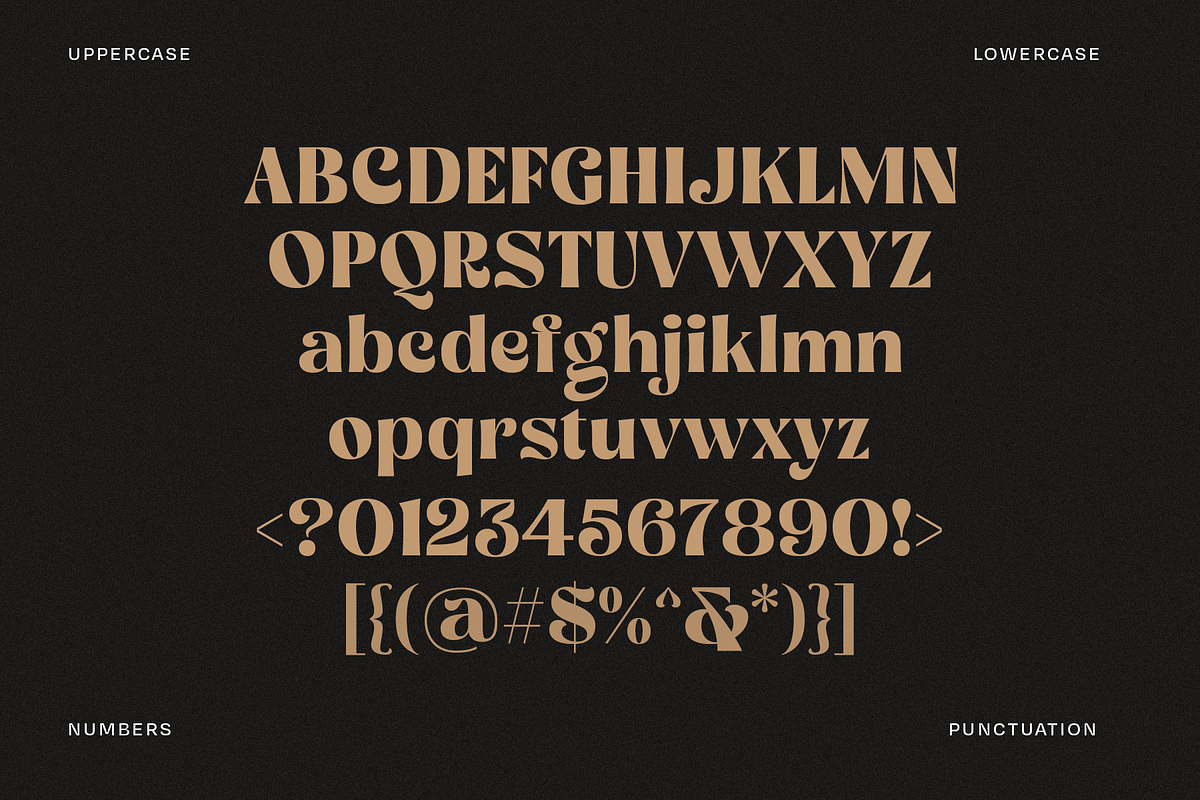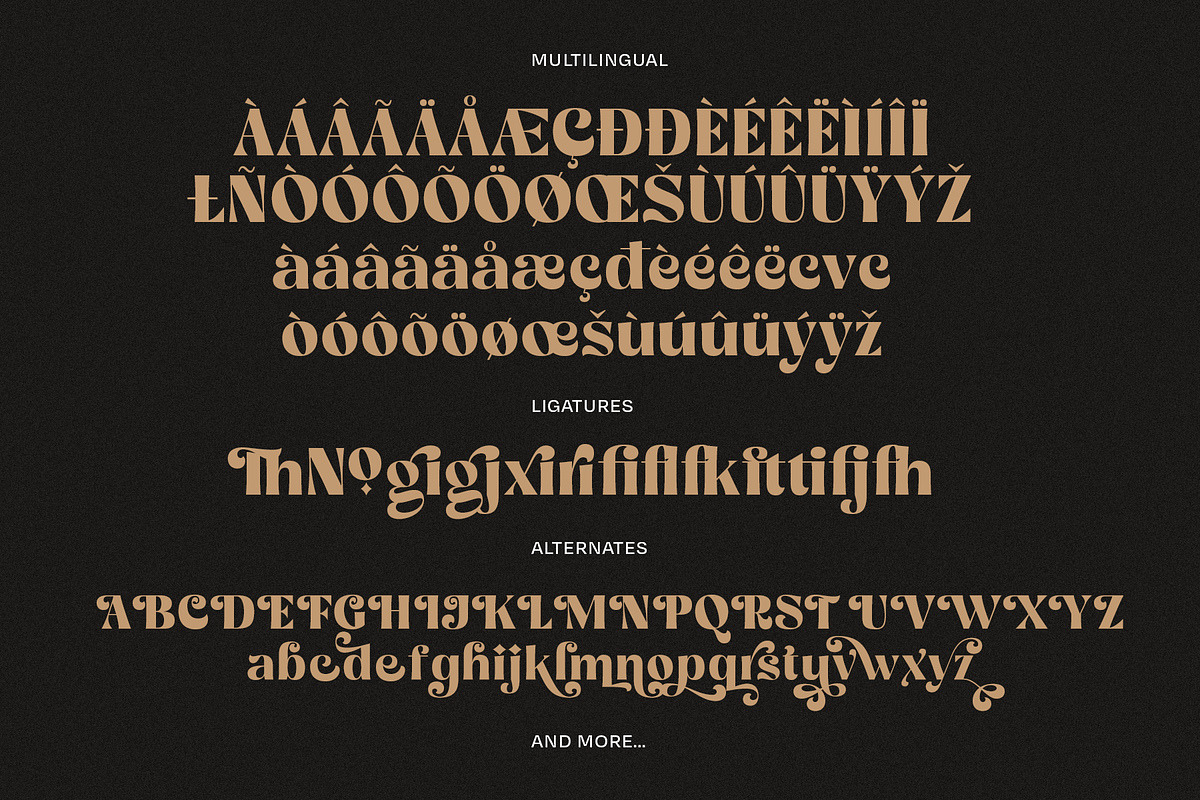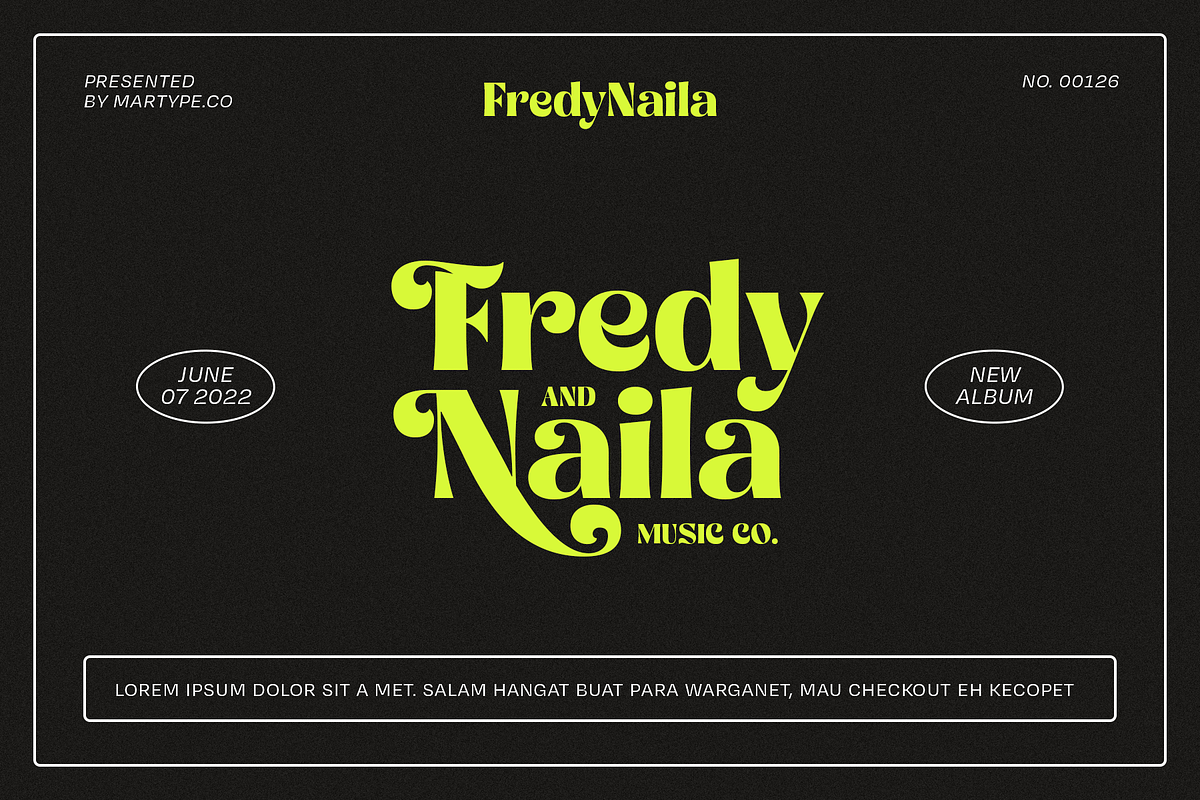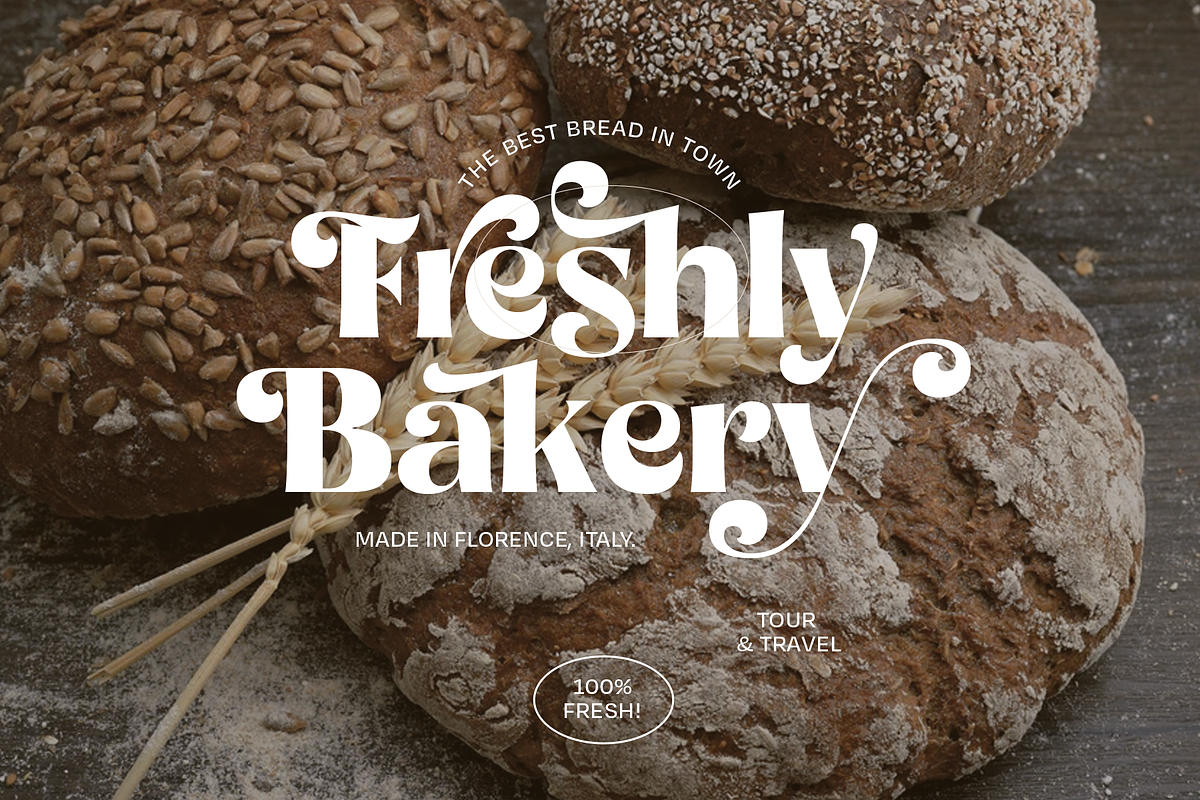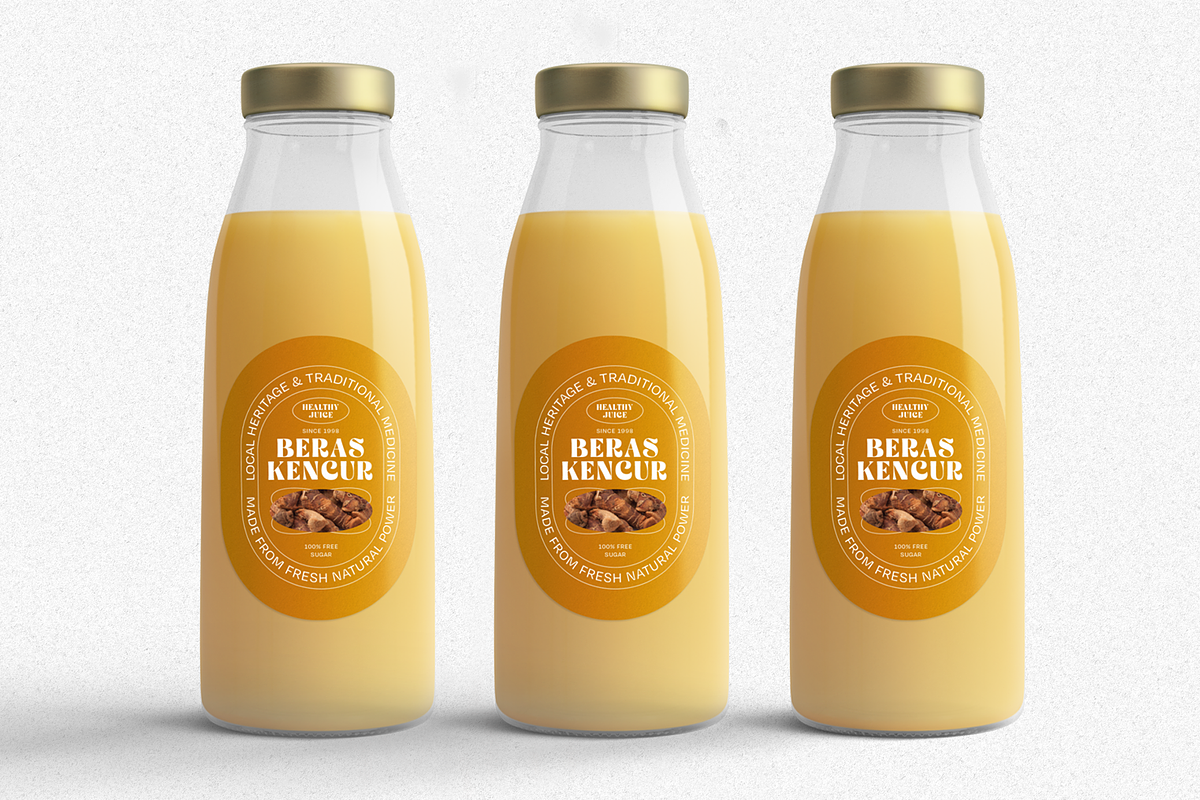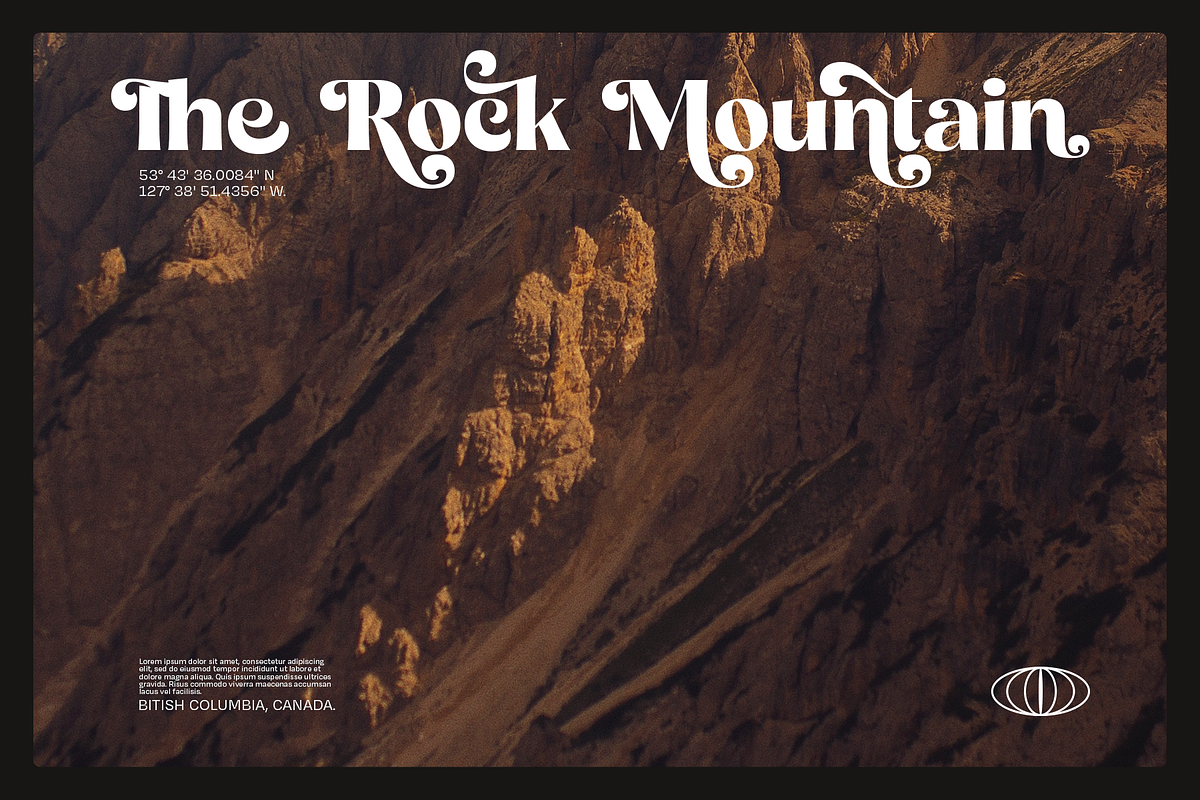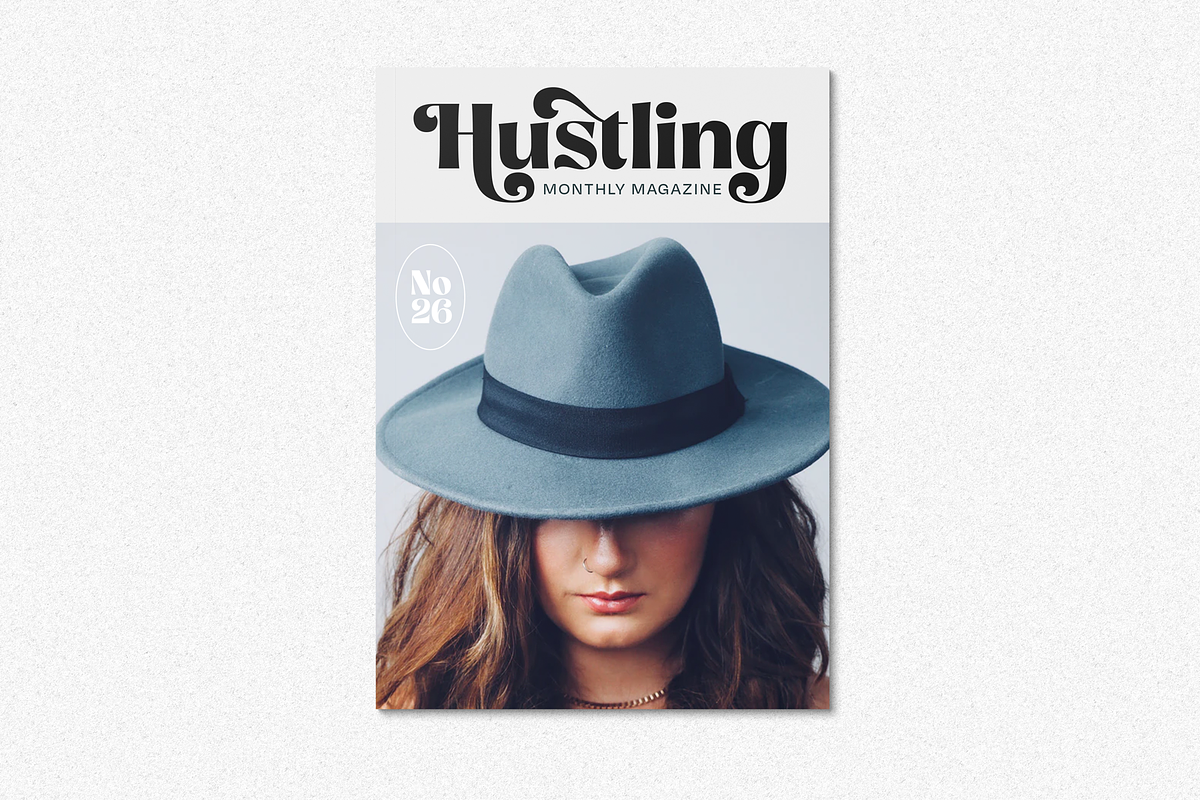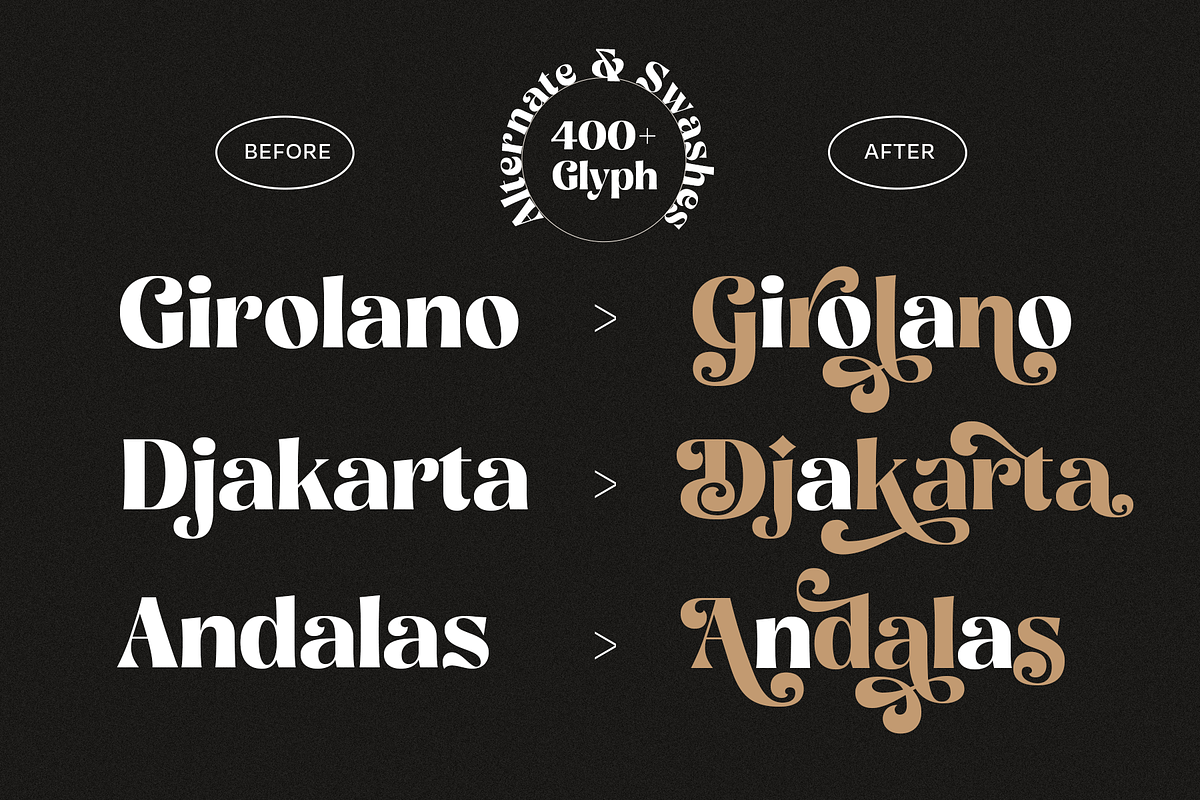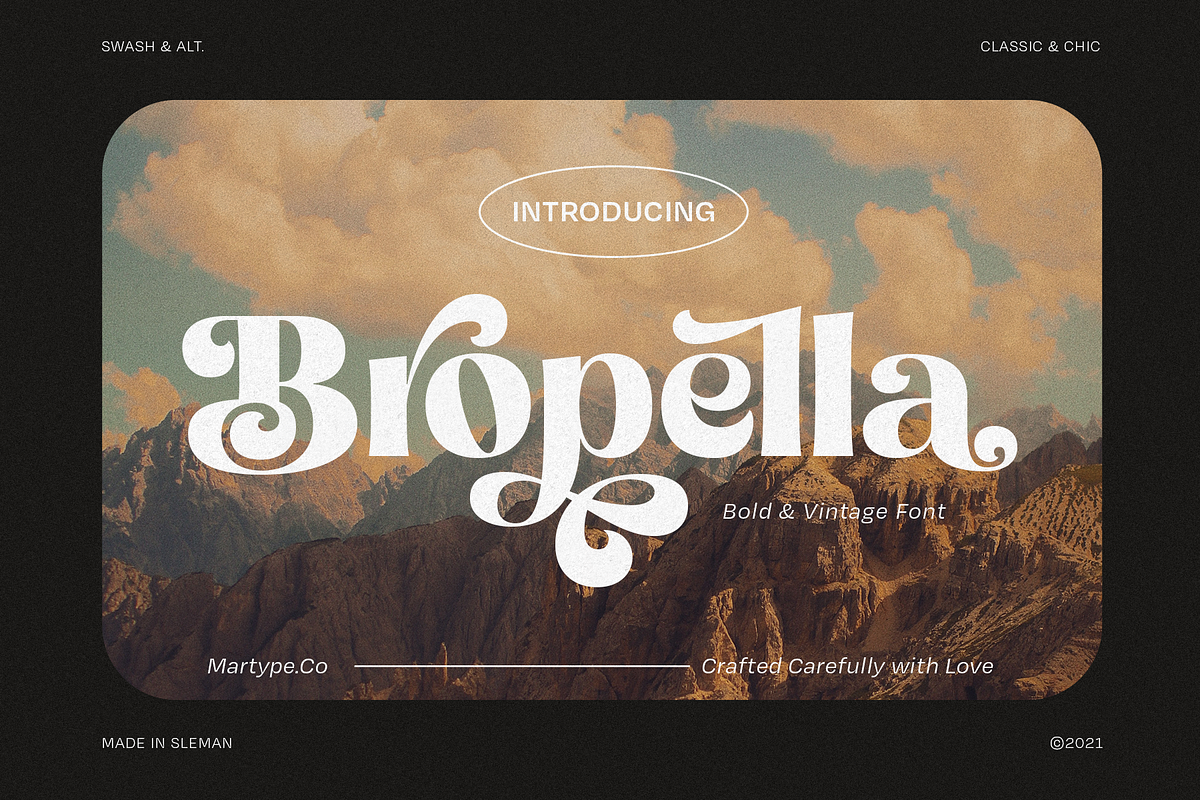
Bropella - Display Font
Introducing, Bropella. A bold sans with unique alternates and swashes! Comes with classic style and modern design with strong bold feels, of course this font perfect for headline, logotype, apparel, branding, packaging, editorial and etc.